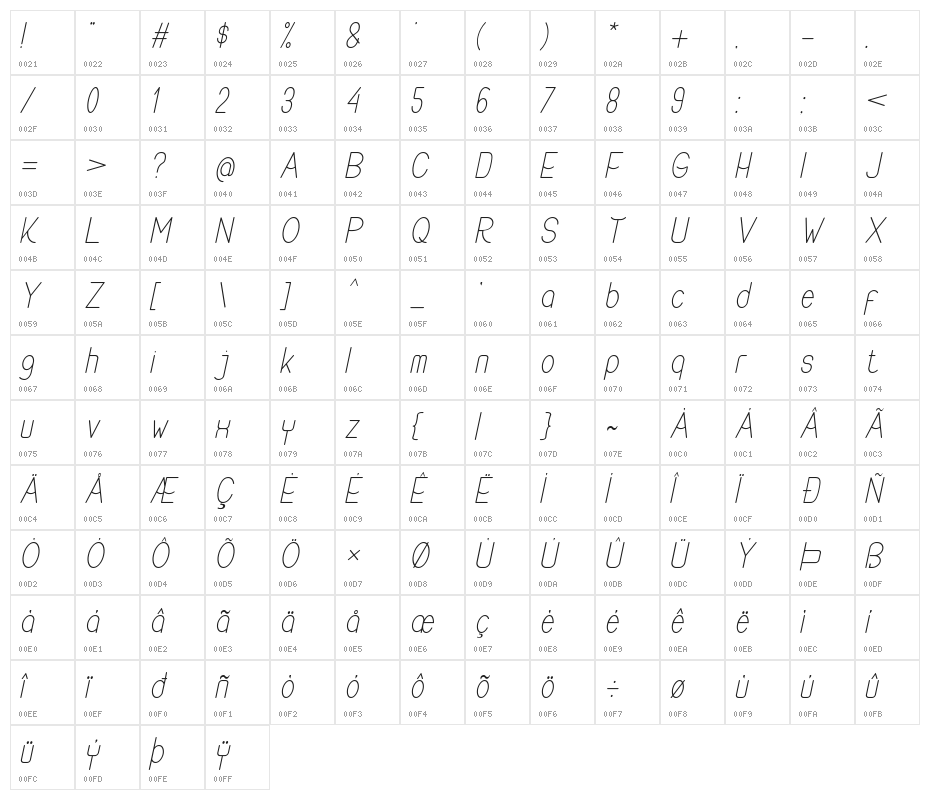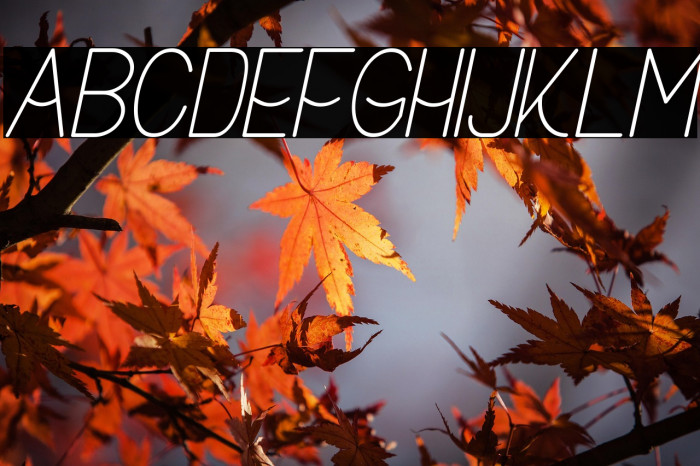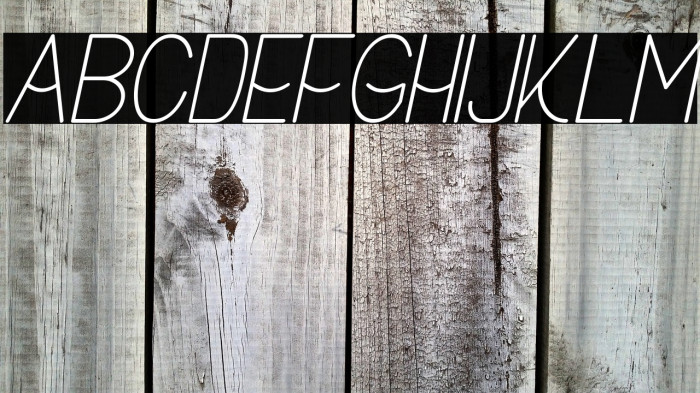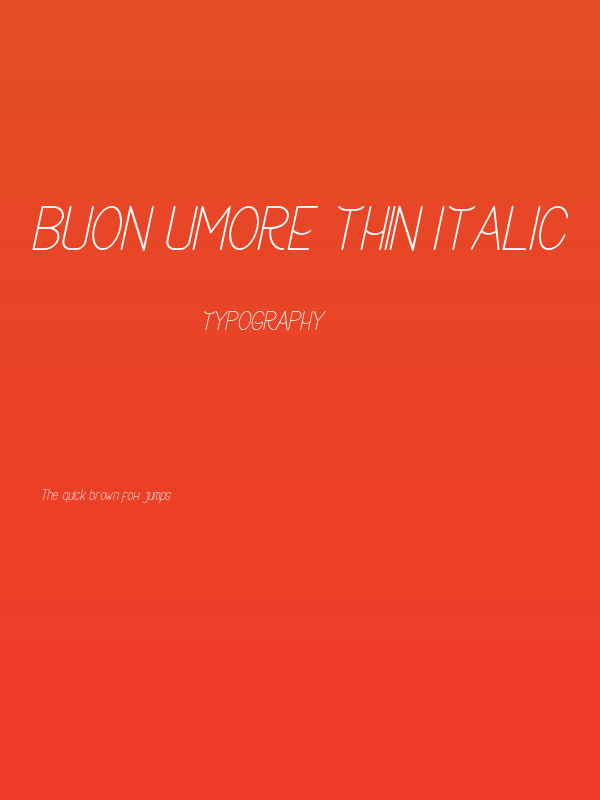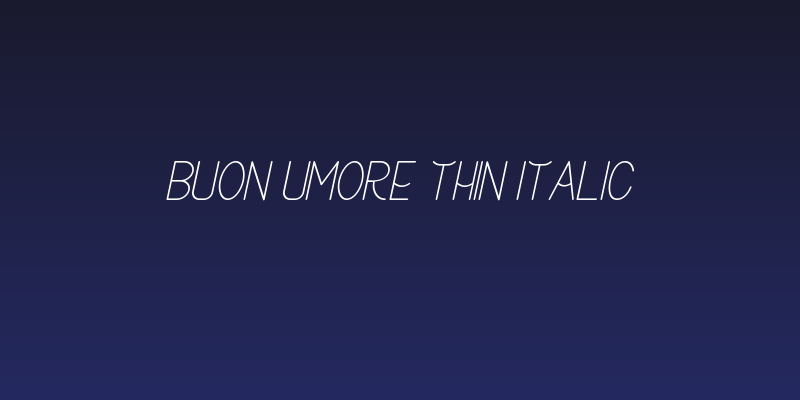
Buon Umore Thin Italic Font
Buon Umore Thin Italic Description
This font features a sleek and elegant design with thin, elongated strokes that give it a modern and sophisticated appearance. The letters are slightly slanted, adding a dynamic and fluid feel to the text. The uppercase and lowercase characters maintain a consistent style, with smooth curves and clean lines. The numerals and special characters are designed to complement the overall aesthetic, ensuring readability and style. This font is ideal for projects that require a touch of elegance and modernity.
| Proposed Projects | Ideal for fashion magazines, luxury branding, elegant invitations, and modern web design. |